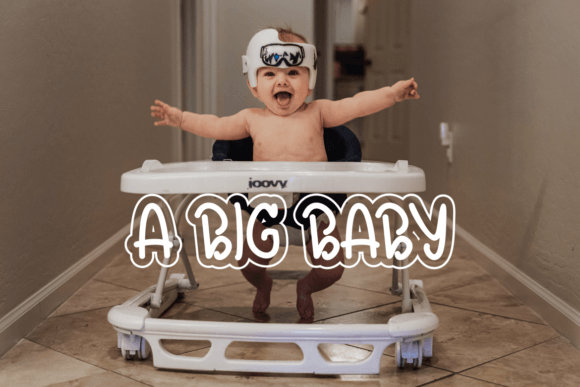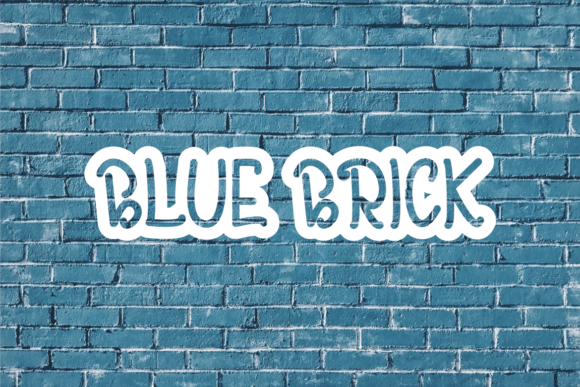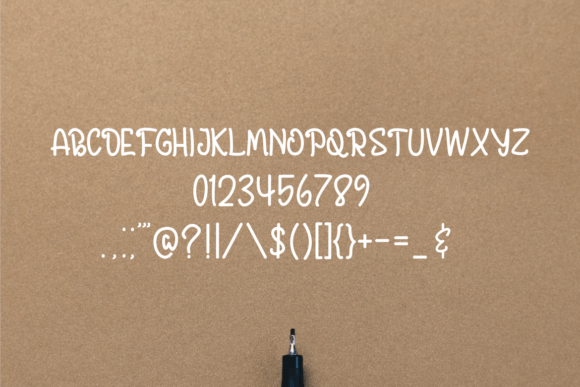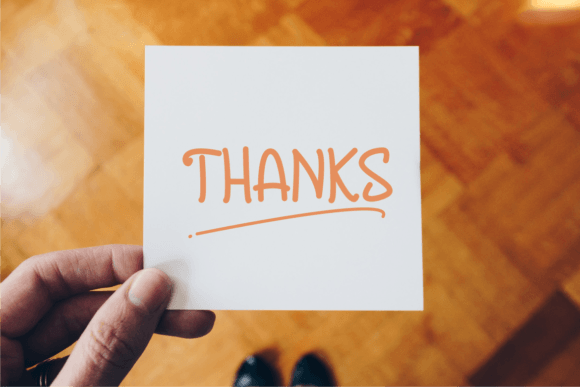
Introducing Dogelo Font: The Modern, Bold, and Authentic Display Font for Your Branding Needs
In the world of typography, a font can make all the difference in creating a lasting impression. For designers and crafters looking for a modern, bold, and authentic display font, Dogelo is an excellent choice. This versatile font is suitable for a wide range of branding projects, including logos, t-shirt printing, esports, and many more. In this article, we’ll explore the features and benefits of Dogelo Font and why it’s an outstanding choice for various contexts.
What is Dogelo Font?
Dogelo Font is a contemporary display font designed to make a statement. Its bold and authentic style makes it perfect for grabbing attention and creating a lasting impression. The font’s modern aesthetic is ideal for designers and crafters who want to add a touch of sophistication and elegance to their projects.
Key Features of Dogelo Font
- Modern and Bold Design: Dogelo Font boasts a sleek and modern design that’s sure to turn heads. Its bold style makes it perfect for creating eye-catching headlines, logos, and titles.
- Authentic and Unique: Dogelo Font has a unique and authentic style that sets it apart from other fonts. Its distinctive design makes it an excellent choice for designers and crafters looking for a font that stands out from the crowd.
- Versatile and Adaptable: Dogelo Font is an incredibly versatile font that can be used in a wide range of contexts, from logos and branding to t-shirt printing and esports.
- Easily Readable: Despite its bold style, Dogelo Font is easily readable, making it perfect for use in various applications, from digital media to print materials.
Use Cases for Dogelo Font
Dogelo Font is an excellent choice for various branding projects, including:
- Logo Design: Create a lasting impression with a bold and modern logo that showcases your brand’s personality.
- T-Shirt Printing: Add a touch of style and sophistication to your t-shirt designs with Dogelo Font.
- Esports: Make a statement in the world of esports with a font that’s bold, modern, and authentic.
- Branding and Advertising: Use Dogelo Font to create eye-catching headlines, titles, and slogans that capture your audience’s attention.
Benefits of Using Dogelo Font
By choosing Dogelo Font for your branding projects, you’ll enjoy several benefits, including:
- Unique and Memorable Designs: Dogelo Font helps you create unique and memorable designs that stand out from the crowd.
- Consistency Across Platforms: Use Dogelo Font across various platforms, from digital media to print materials, to maintain consistency and build brand recognition.
- Time-Saving: With Dogelo Font, you can create professional-looking designs quickly and efficiently, saving you time and effort.
- Professionalism and Sophistication: Dogelo Font adds a touch of professionalism and sophistication to your designs, helping you establish a strong brand identity.
In conclusion, Dogelo Font is an exceptional choice for designers and crafters looking for a modern, bold, and authentic display font. Its versatility, readability, and unique style make it perfect for a wide range of branding projects, from logos and t-shirt printing to esports and advertising. By choosing Dogelo Font, you’ll be able to create stunning designs that capture your audience’s attention and leave a lasting impression.